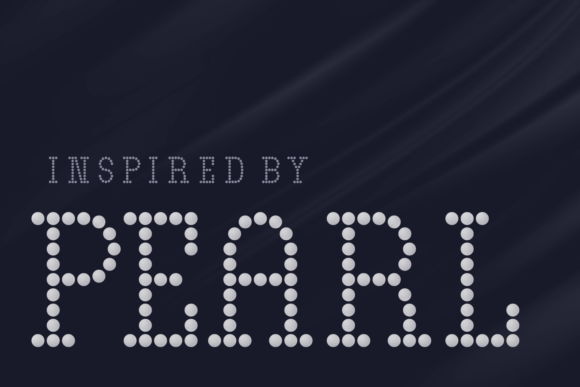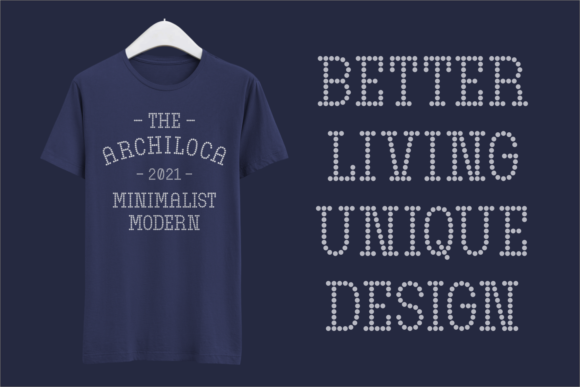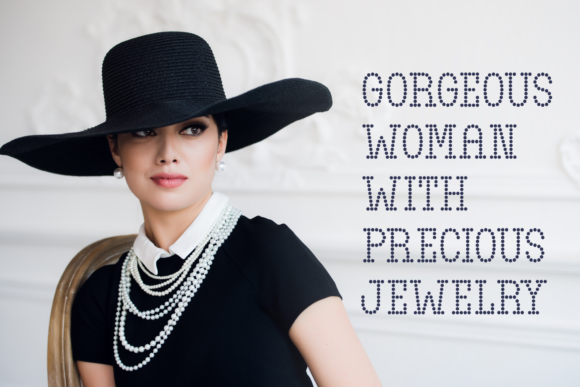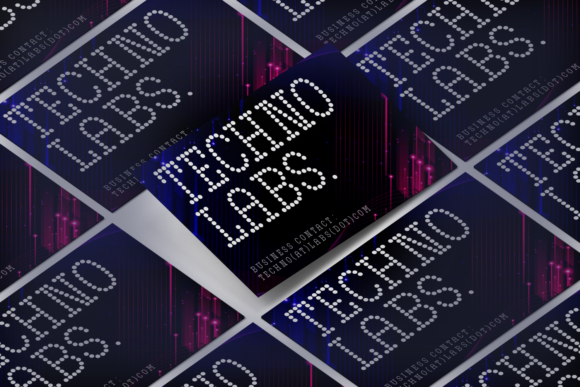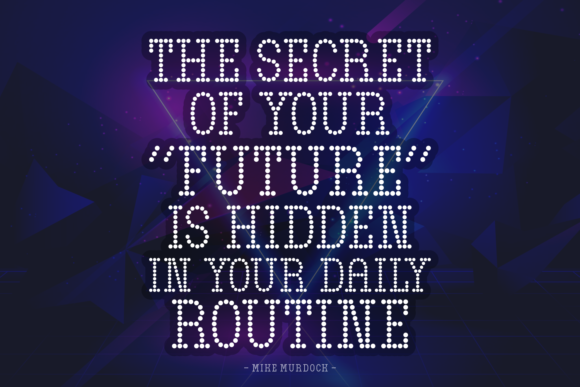
Introduction to Sis Font
Have you ever been in the middle of a creative project, pouring your heart and soul into every detail, only to realize you’re missing that perfect finishing touch? For designers, this can be a frustrating and time-consuming process. But what if you had access to a versatile and high-quality font that could elevate your work to the next level?
Enter Sis Font, a genuine display font that exudes a sense of simplicity and sophistication. With its unique and original look, Sis Font is the perfect addition to any design resource, whether you’re working on a letterhead, title, or stationery project. And the best part? It’s available for free download, complete with a transparent background that makes it easy to integrate into your design.
For designers, Sis Font is a valuable asset that can add a touch of professionalism and flair to any creative project. Its high-quality design and versatility make it an essential resource for anyone looking to take their design work to the next level.
Key Features of Sis Font
- Unique, modern font style with a transparent background, perfect for layering and design versatility.
- Designed for use in digital and print media, including logos, branding, and marketing materials.
Honest Review: Sis Font
I recently had the chance to work with the Sis Font, and I must say, it’s been a game-changer for my design projects. This free download has become an essential resource in my creative toolbox.
- ✨ High-quality typography: Sis Font offers crisp and clear lines, perfect for any design project.
- ✨ Versatile design: The font is suitable for a wide range of creative projects, from logos to brochures.
- ✨ Transparent background: This feature allows for seamless integration with any background image or color.
- ⚠️ Limited font variations: While the font itself is excellent, there’s a lack of additional font styles and weights.
- ⚠️ Not ideal for small text: Due to its high-quality design, the font can become difficult to read in small sizes.
Overall, I’m impressed with the Sis Font. Its high-quality design and versatility make it an excellent addition to any design resource collection. While it may have some limitations, I’ve found it to be a valuable asset for my creative projects.
Tips for Getting the Most Out of Sis Font
Use Sis Font in bold and italic styles to add emphasis to your text. Experiment with different font sizes and colors to create a visually appealing design. Sis Font is a high-quality font that can be used in various design projects, from business cards to posters.
Sis Font is commonly used in creative projects such as branding, marketing materials, and social media graphics. Its high-quality design and transparent background make it an ideal choice for designers who want to create professional-looking designs quickly and easily.